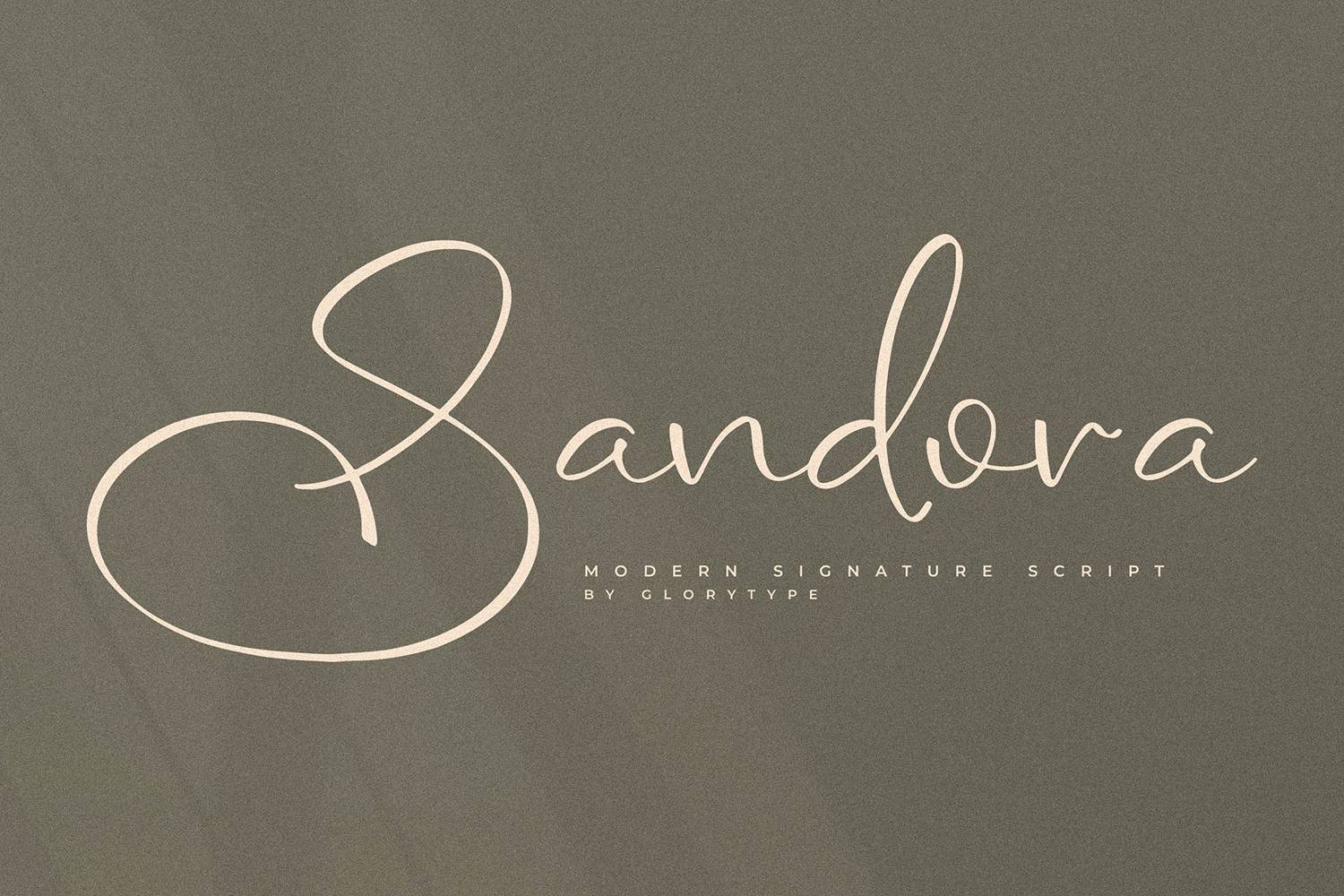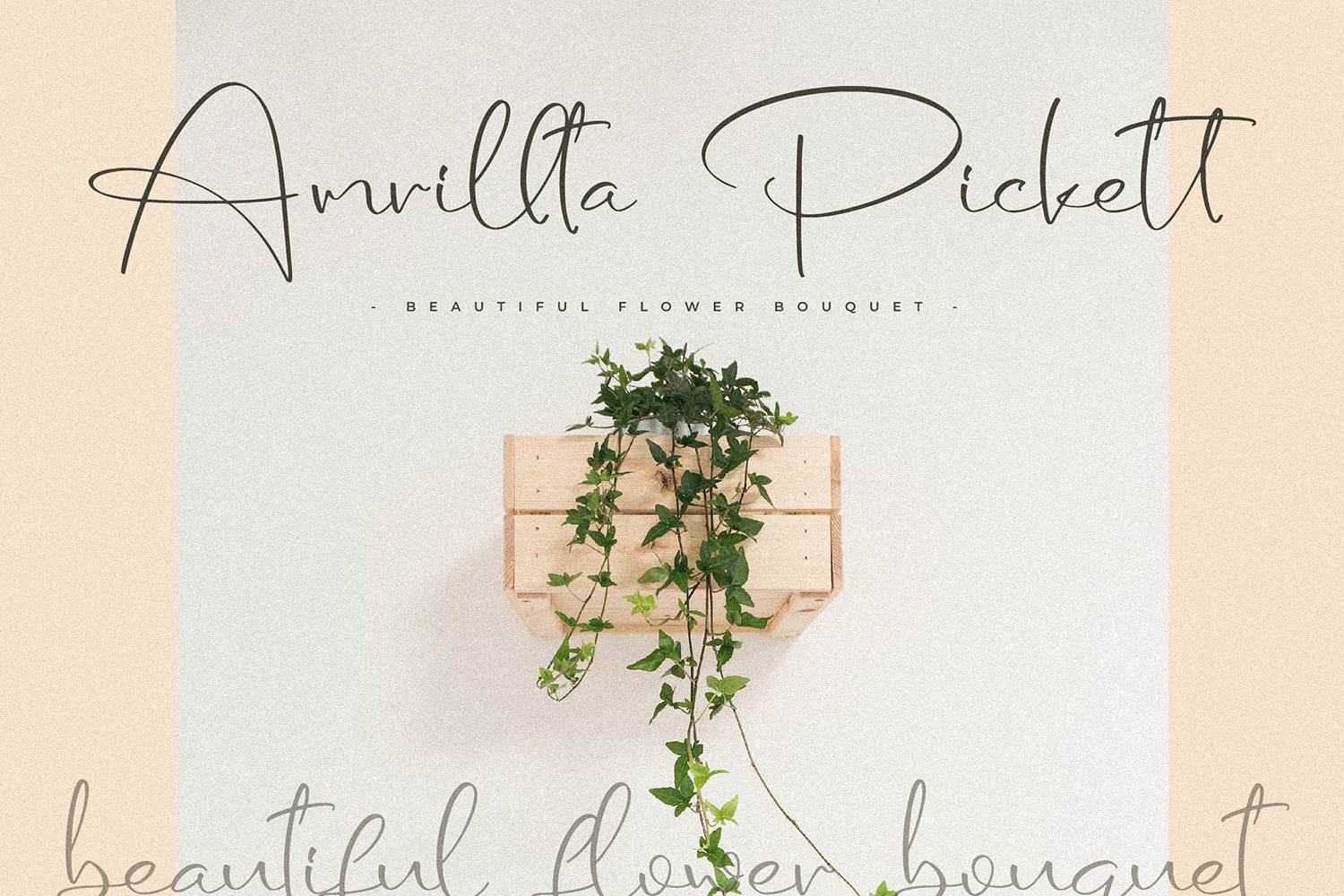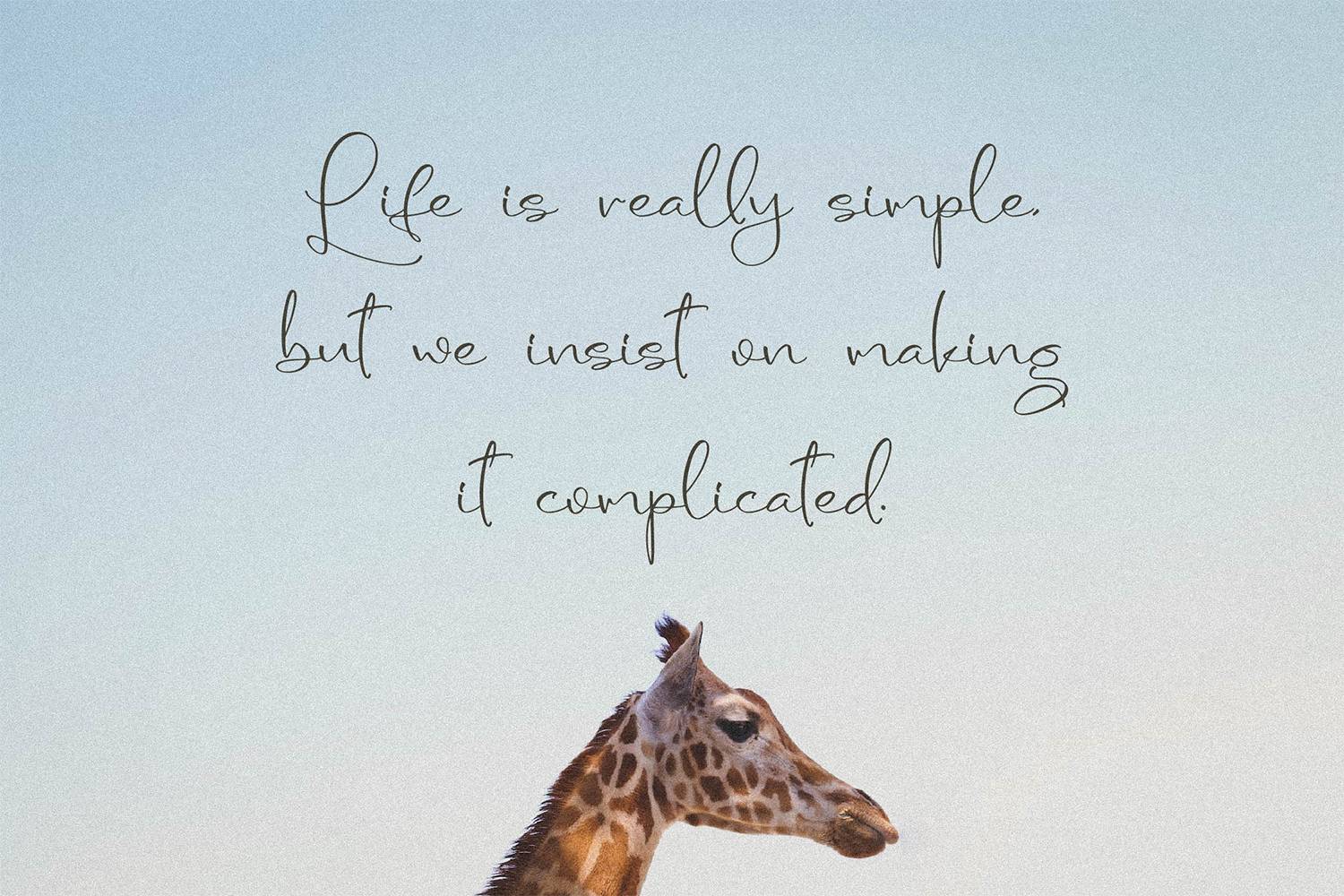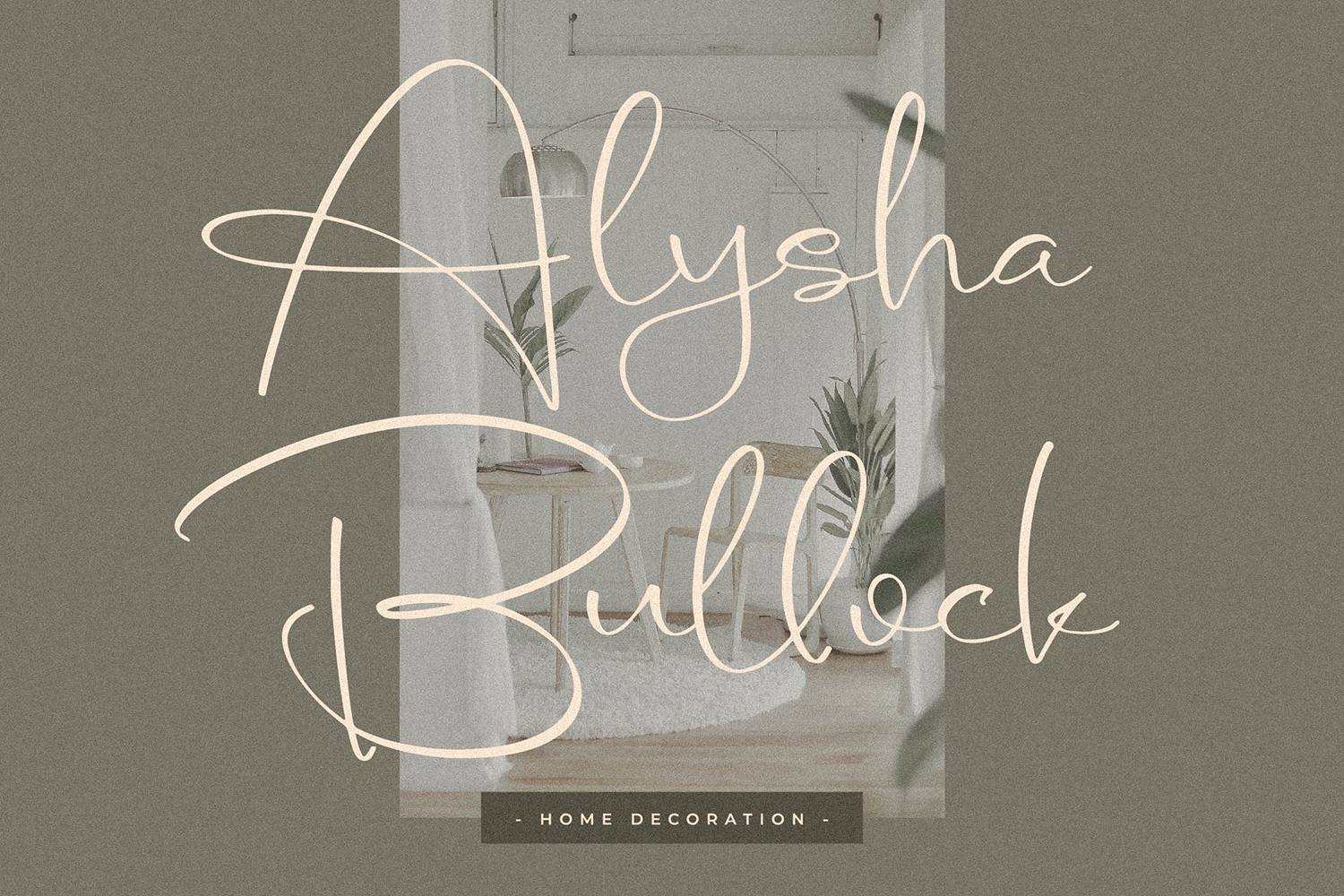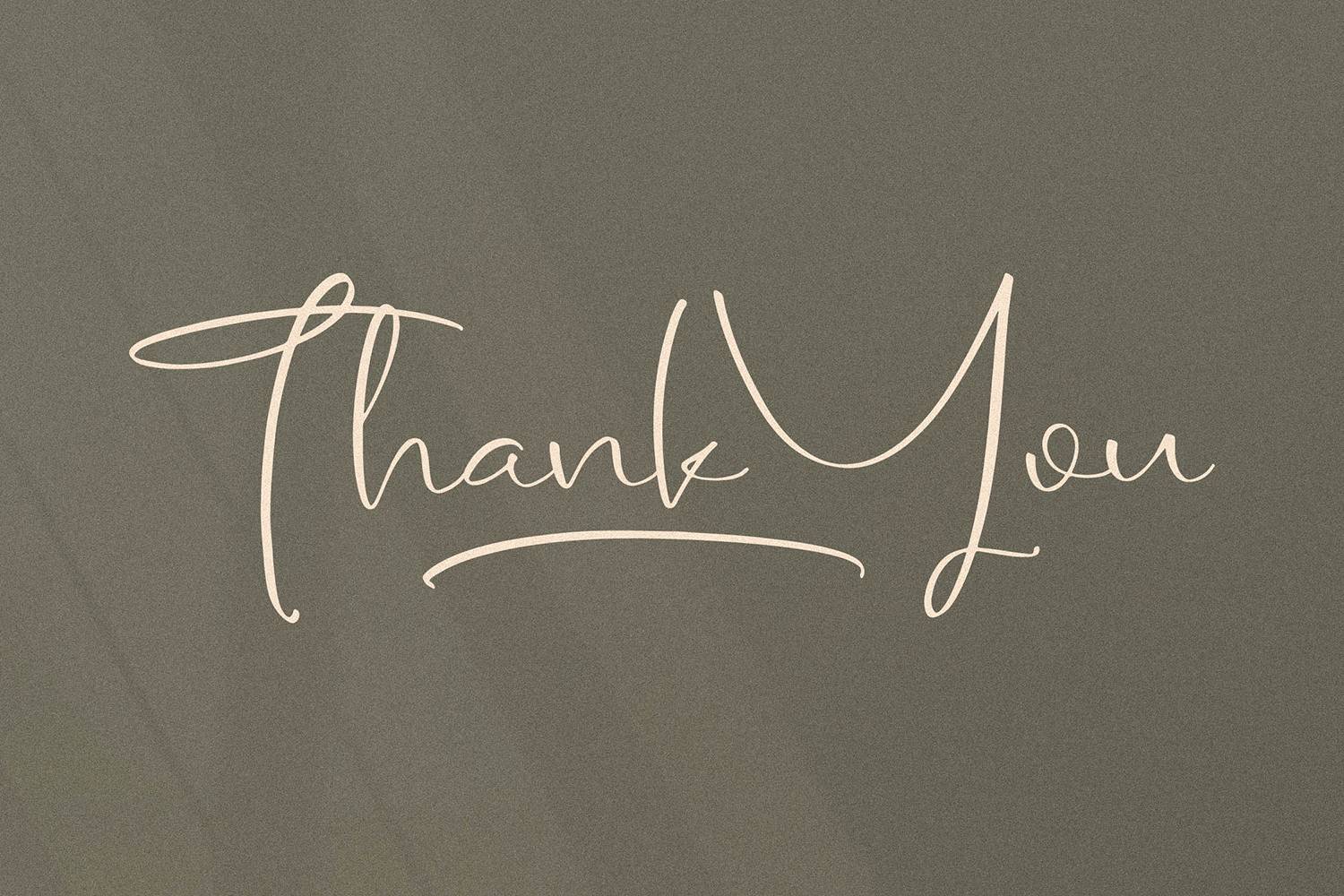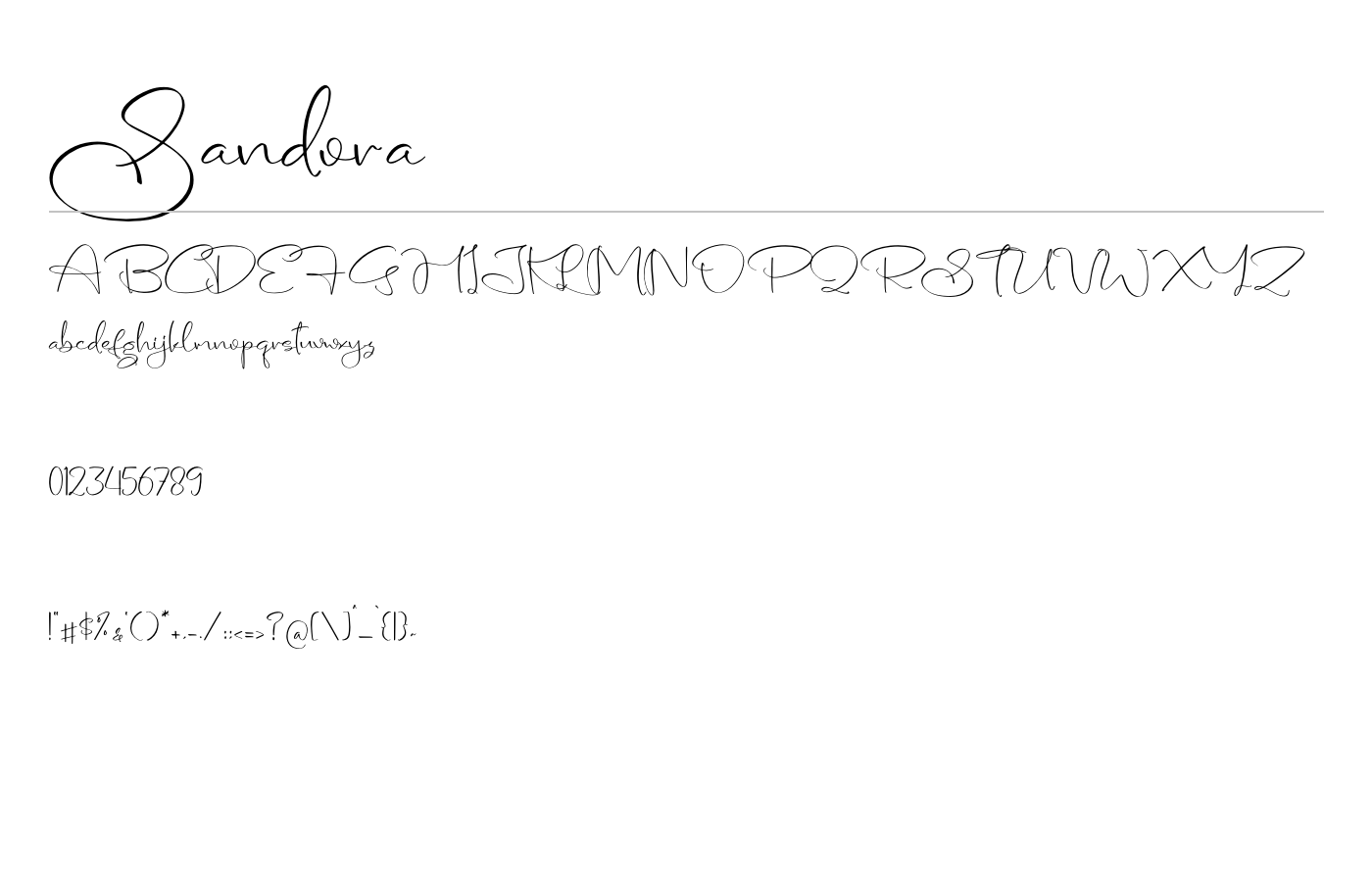
Sandora is an elegant, delicate script font characterized by its thin, flowing lines and elaborate swashes, giving it a graceful and artistic feel. Its light weight and airy structure make it ideal for luxury branding, wedding invitations, and high-end editorial highlights where a refined, sophisticated touch is desired. This font works best in decorative headlines or logos that require a unique, handwritten elegance.
Sandora Font